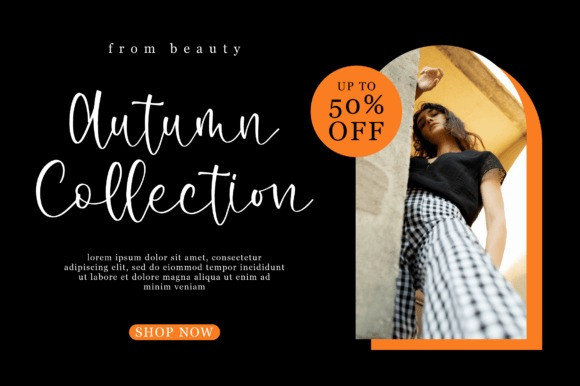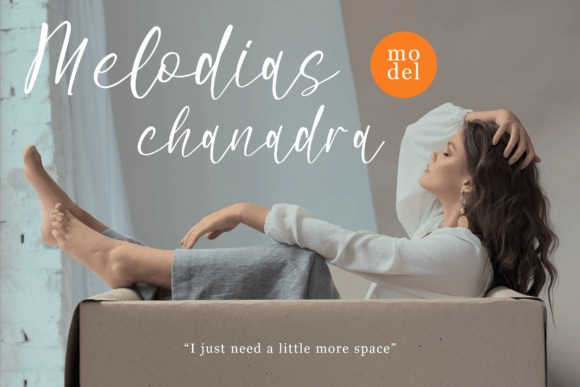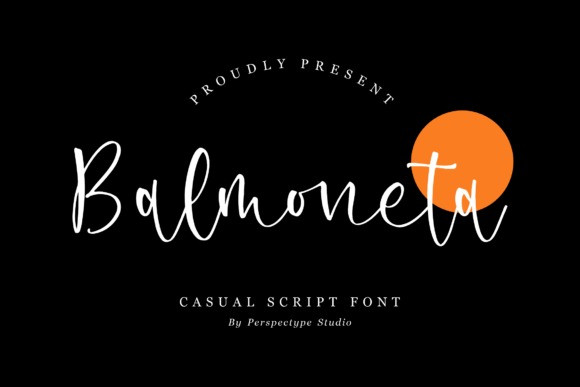
Balmoneta Font
Balmoneta Font is a casual script font, suitable for any project. You can create logos, branding projects, homeware designs, product packaging, mugs, quotes, posters, shopping bags, t-shirts, book covers, name cards, invitation cards, greeting cards, labels, photography, watermark, special events, and all your other lovely projects that need a beautiful script taste.